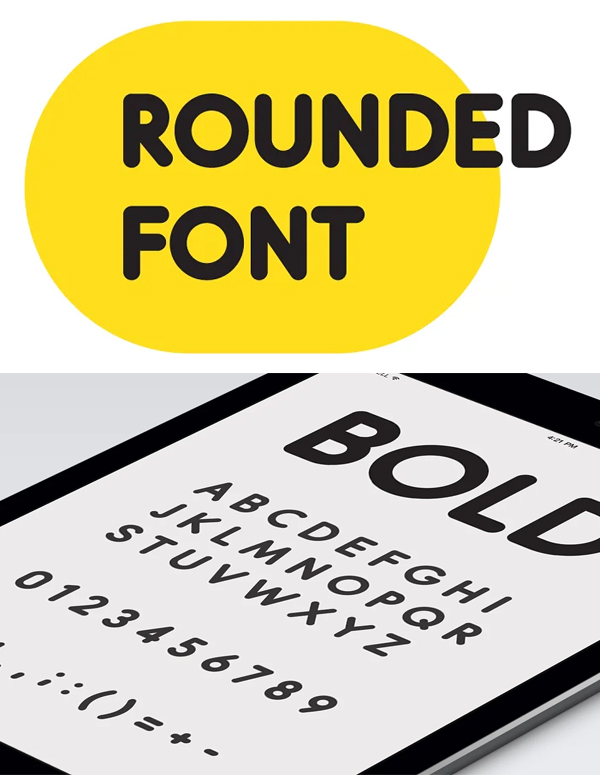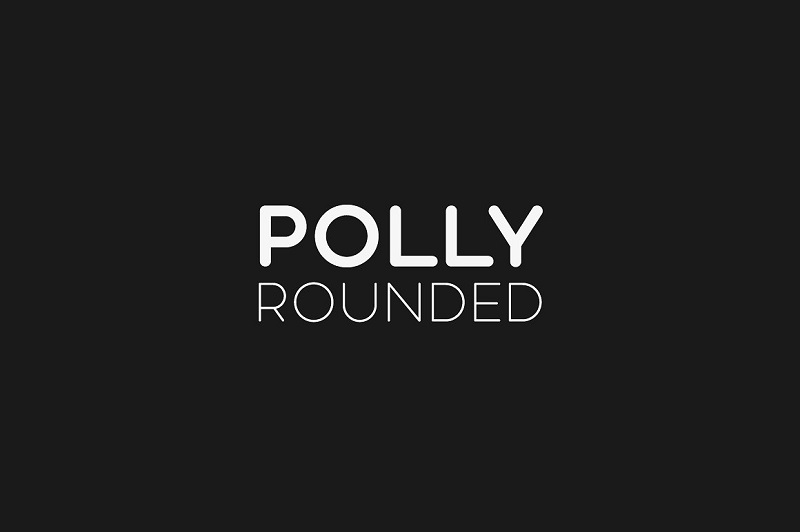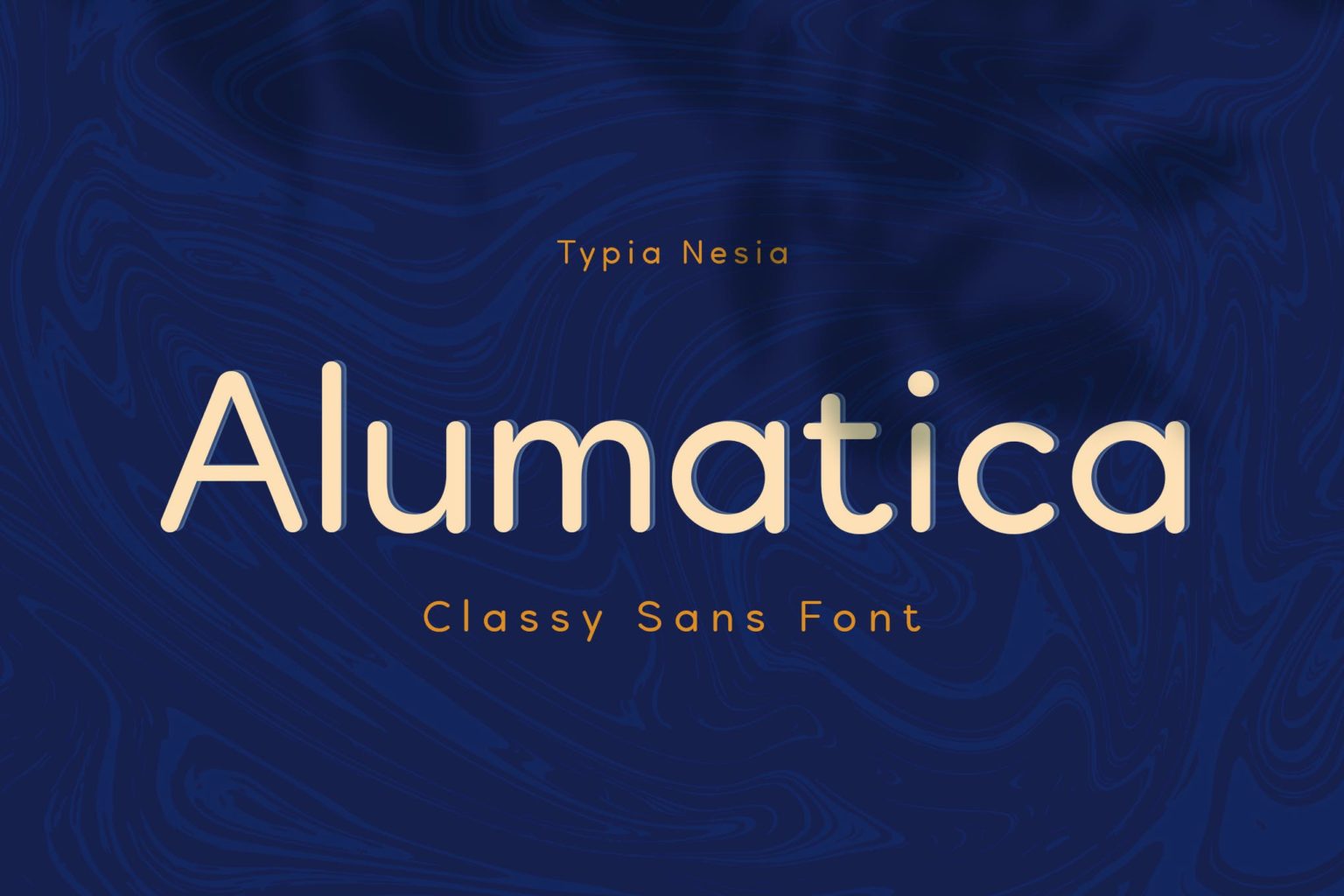
Famous Rounded Fonts . Unlike sharper fonts, these have rounded terminals and shapes, making them versatile and inviting. Other popular choices are gotham rounded, proxima nova soft, and filson soft, known for their versatility. A collection of 30 free and premium rounded fonts to add to your library. Their smooth curves and soft edges add an inviting touch, making any design instantly more approachable. A continuously updated collection of the 10 most popular rounded web fonts based on font usage data from typewolf between 2013 and 2024. Popular rounded fonts include vag rounded, avenir next rounded, and proxima nova soft. Some popular rounded fonts include vag rounded which is widely seen in volkswagen's branding, and sofia pro soft which is used for its legibility and modern feel. Rounded fonts, known for their smooth curves and softer edges, bring a friendly and modern vibe to typography. In this article, we’ll explore the charming world of rounded fonts and offer a handpicked list of 30 beautiful rounded fonts that you can incorporate into your projects. These typefaces are renowned for their versatility and appeal, making them favorites among designers for both digital and print projects.
In this article, we’ll explore the charming world of rounded fonts and offer a handpicked list of 30 beautiful rounded fonts that you can incorporate into your projects. Popular rounded fonts include vag rounded, avenir next rounded, and proxima nova soft. Other popular choices are gotham rounded, proxima nova soft, and filson soft, known for their versatility. Unlike sharper fonts, these have rounded terminals and shapes, making them versatile and inviting. Rounded fonts, known for their smooth curves and softer edges, bring a friendly and modern vibe to typography. These typefaces are renowned for their versatility and appeal, making them favorites among designers for both digital and print projects. Some popular rounded fonts include vag rounded which is widely seen in volkswagen's branding, and sofia pro soft which is used for its legibility and modern feel. A continuously updated collection of the 10 most popular rounded web fonts based on font usage data from typewolf between 2013 and 2024. Their smooth curves and soft edges add an inviting touch, making any design instantly more approachable. A collection of 30 free and premium rounded fonts to add to your library.
Famous Rounded Fonts Other popular choices are gotham rounded, proxima nova soft, and filson soft, known for their versatility. In this article, we’ll explore the charming world of rounded fonts and offer a handpicked list of 30 beautiful rounded fonts that you can incorporate into your projects. These typefaces are renowned for their versatility and appeal, making them favorites among designers for both digital and print projects. Rounded fonts, known for their smooth curves and softer edges, bring a friendly and modern vibe to typography. Popular rounded fonts include vag rounded, avenir next rounded, and proxima nova soft. Other popular choices are gotham rounded, proxima nova soft, and filson soft, known for their versatility. Some popular rounded fonts include vag rounded which is widely seen in volkswagen's branding, and sofia pro soft which is used for its legibility and modern feel. A continuously updated collection of the 10 most popular rounded web fonts based on font usage data from typewolf between 2013 and 2024. Their smooth curves and soft edges add an inviting touch, making any design instantly more approachable. A collection of 30 free and premium rounded fonts to add to your library. Unlike sharper fonts, these have rounded terminals and shapes, making them versatile and inviting.
35 Best Free Rounded Fonts for Graphic Designers Fonts Graphic Famous Rounded Fonts A collection of 30 free and premium rounded fonts to add to your library. Rounded fonts, known for their smooth curves and softer edges, bring a friendly and modern vibe to typography. These typefaces are renowned for their versatility and appeal, making them favorites among designers for both digital and print projects. Other popular choices are gotham rounded, proxima nova. Famous Rounded Fonts.
25+ Best Rounded Fonts (Free & Pro) Design Shack Famous Rounded Fonts These typefaces are renowned for their versatility and appeal, making them favorites among designers for both digital and print projects. In this article, we’ll explore the charming world of rounded fonts and offer a handpicked list of 30 beautiful rounded fonts that you can incorporate into your projects. Popular rounded fonts include vag rounded, avenir next rounded, and proxima nova. Famous Rounded Fonts.
25+ Best Rounded Fonts for Graphic Design, Branding & Logos Famous Rounded Fonts Some popular rounded fonts include vag rounded which is widely seen in volkswagen's branding, and sofia pro soft which is used for its legibility and modern feel. A continuously updated collection of the 10 most popular rounded web fonts based on font usage data from typewolf between 2013 and 2024. A collection of 30 free and premium rounded fonts to. Famous Rounded Fonts.
42 Best Rounded Fonts Graphic Design Junction Famous Rounded Fonts Unlike sharper fonts, these have rounded terminals and shapes, making them versatile and inviting. These typefaces are renowned for their versatility and appeal, making them favorites among designers for both digital and print projects. A collection of 30 free and premium rounded fonts to add to your library. Some popular rounded fonts include vag rounded which is widely seen in. Famous Rounded Fonts.
70+ Best Rounded Fonts (FREE / Premium) 2024 Hyperpix Famous Rounded Fonts Unlike sharper fonts, these have rounded terminals and shapes, making them versatile and inviting. Other popular choices are gotham rounded, proxima nova soft, and filson soft, known for their versatility. Popular rounded fonts include vag rounded, avenir next rounded, and proxima nova soft. A collection of 30 free and premium rounded fonts to add to your library. Their smooth curves. Famous Rounded Fonts.
Rounded Fonts Free Download Fonts Graphic Design Junction Famous Rounded Fonts These typefaces are renowned for their versatility and appeal, making them favorites among designers for both digital and print projects. Their smooth curves and soft edges add an inviting touch, making any design instantly more approachable. A collection of 30 free and premium rounded fonts to add to your library. Other popular choices are gotham rounded, proxima nova soft, and. Famous Rounded Fonts.
40 Best Rounded Fonts (Free & Pro) Shack Design Famous Rounded Fonts Other popular choices are gotham rounded, proxima nova soft, and filson soft, known for their versatility. Popular rounded fonts include vag rounded, avenir next rounded, and proxima nova soft. A collection of 30 free and premium rounded fonts to add to your library. A continuously updated collection of the 10 most popular rounded web fonts based on font usage data. Famous Rounded Fonts.
25 Smooth Rounded Fonts for Beautifully Functional Designs HipFonts Famous Rounded Fonts These typefaces are renowned for their versatility and appeal, making them favorites among designers for both digital and print projects. Some popular rounded fonts include vag rounded which is widely seen in volkswagen's branding, and sofia pro soft which is used for its legibility and modern feel. Rounded fonts, known for their smooth curves and softer edges, bring a friendly. Famous Rounded Fonts.
Best Rounded Fonts in Canva Blogging Guide Famous Rounded Fonts Some popular rounded fonts include vag rounded which is widely seen in volkswagen's branding, and sofia pro soft which is used for its legibility and modern feel. Unlike sharper fonts, these have rounded terminals and shapes, making them versatile and inviting. Popular rounded fonts include vag rounded, avenir next rounded, and proxima nova soft. These typefaces are renowned for their. Famous Rounded Fonts.